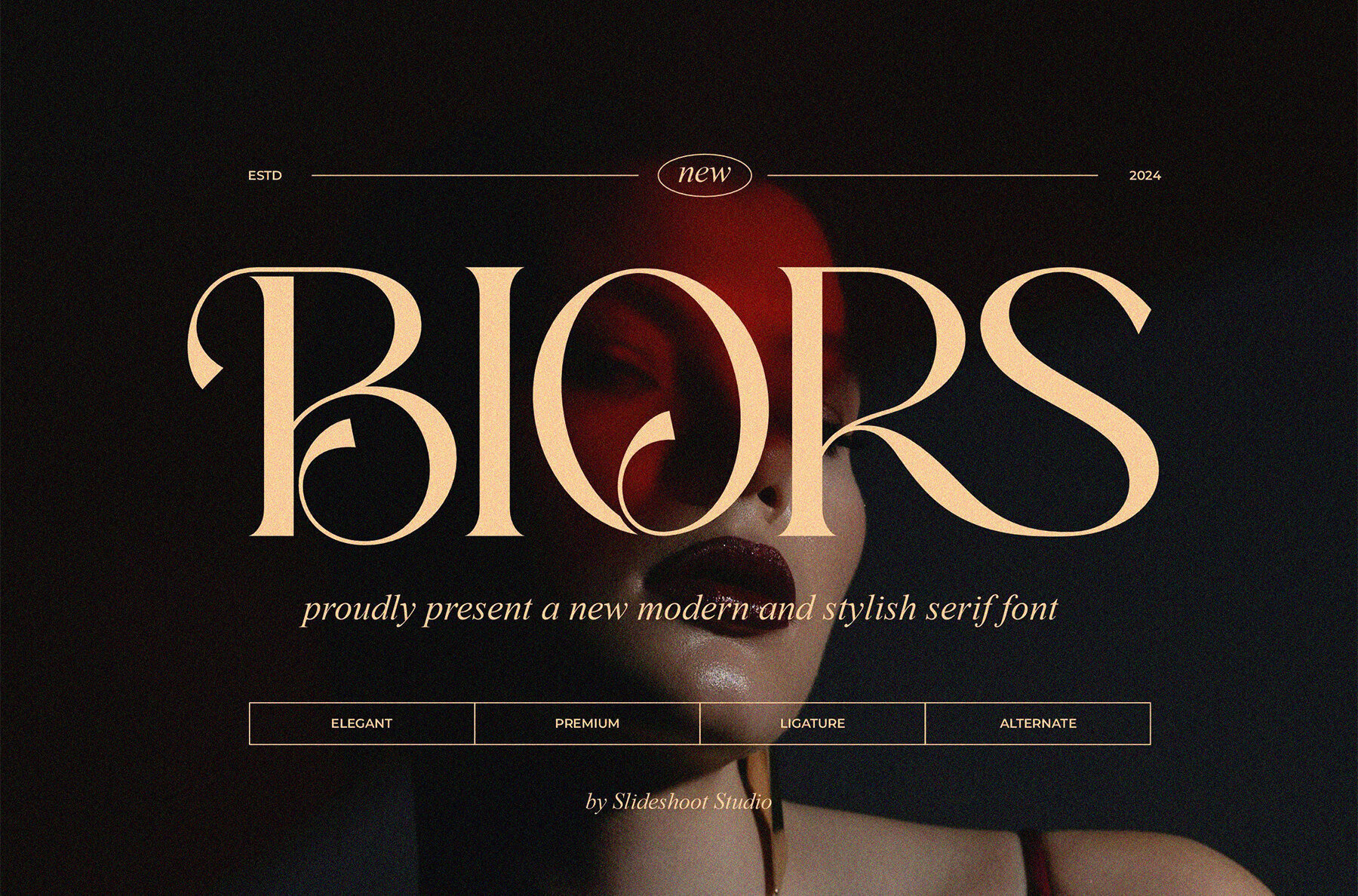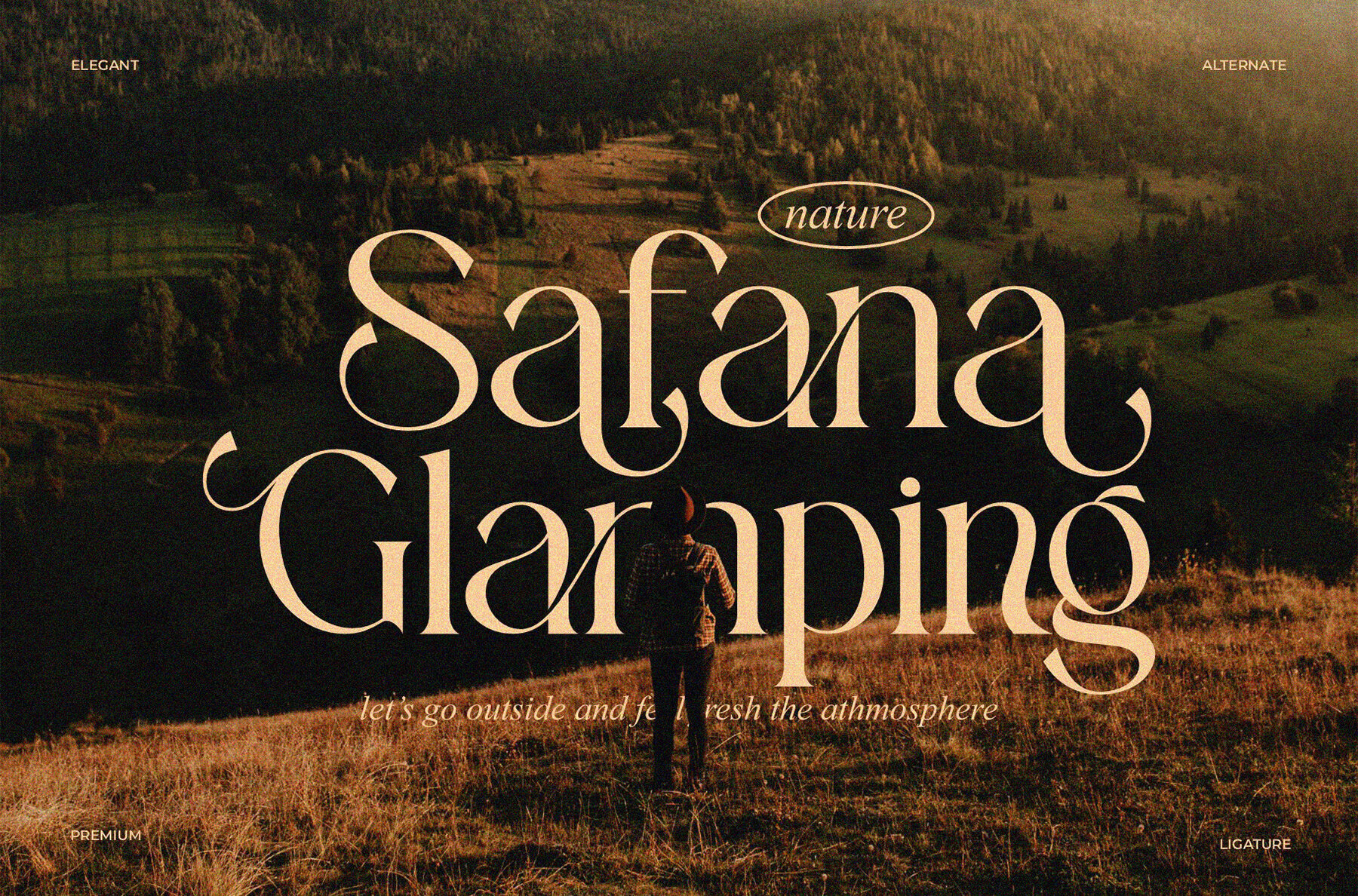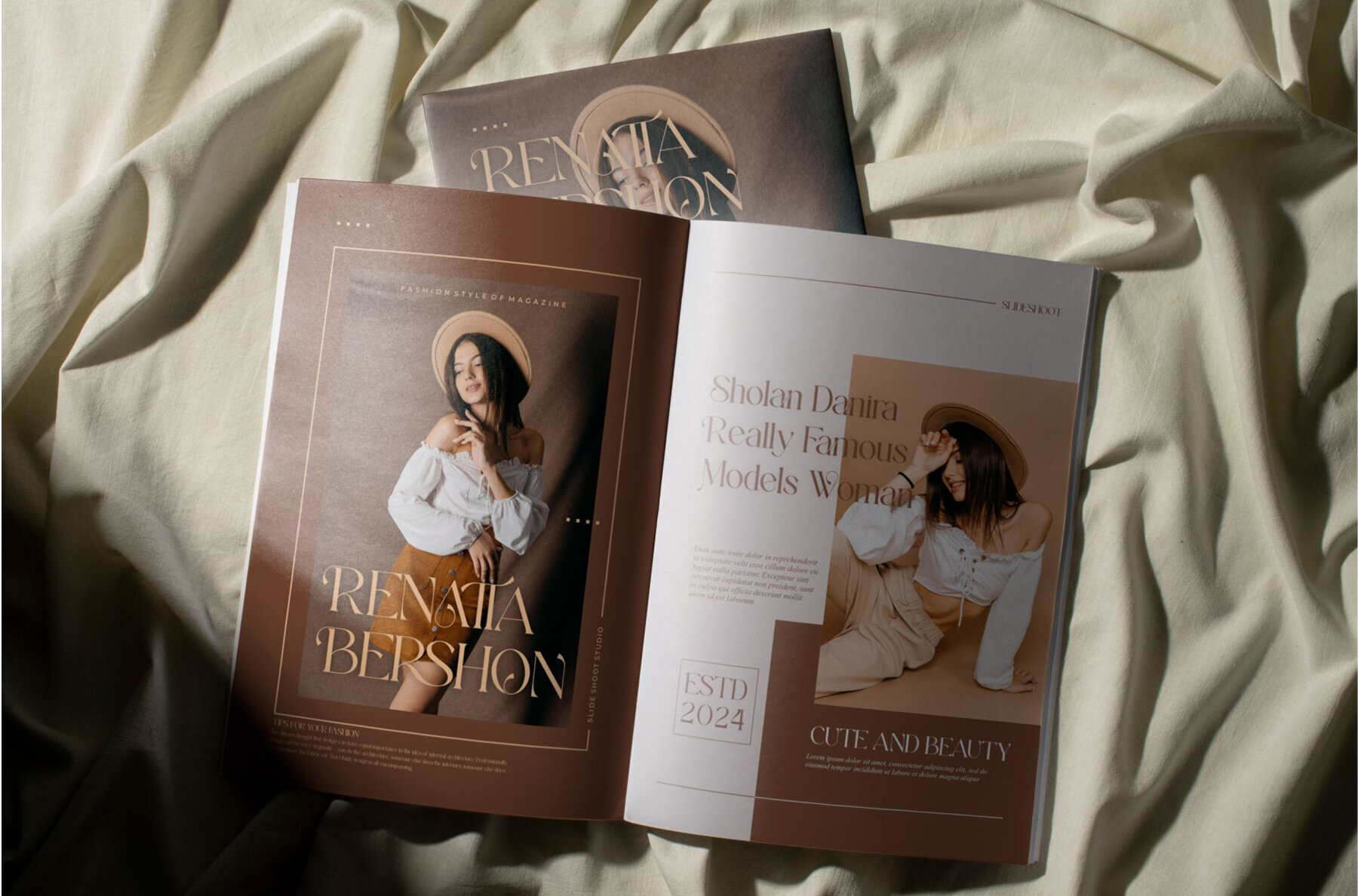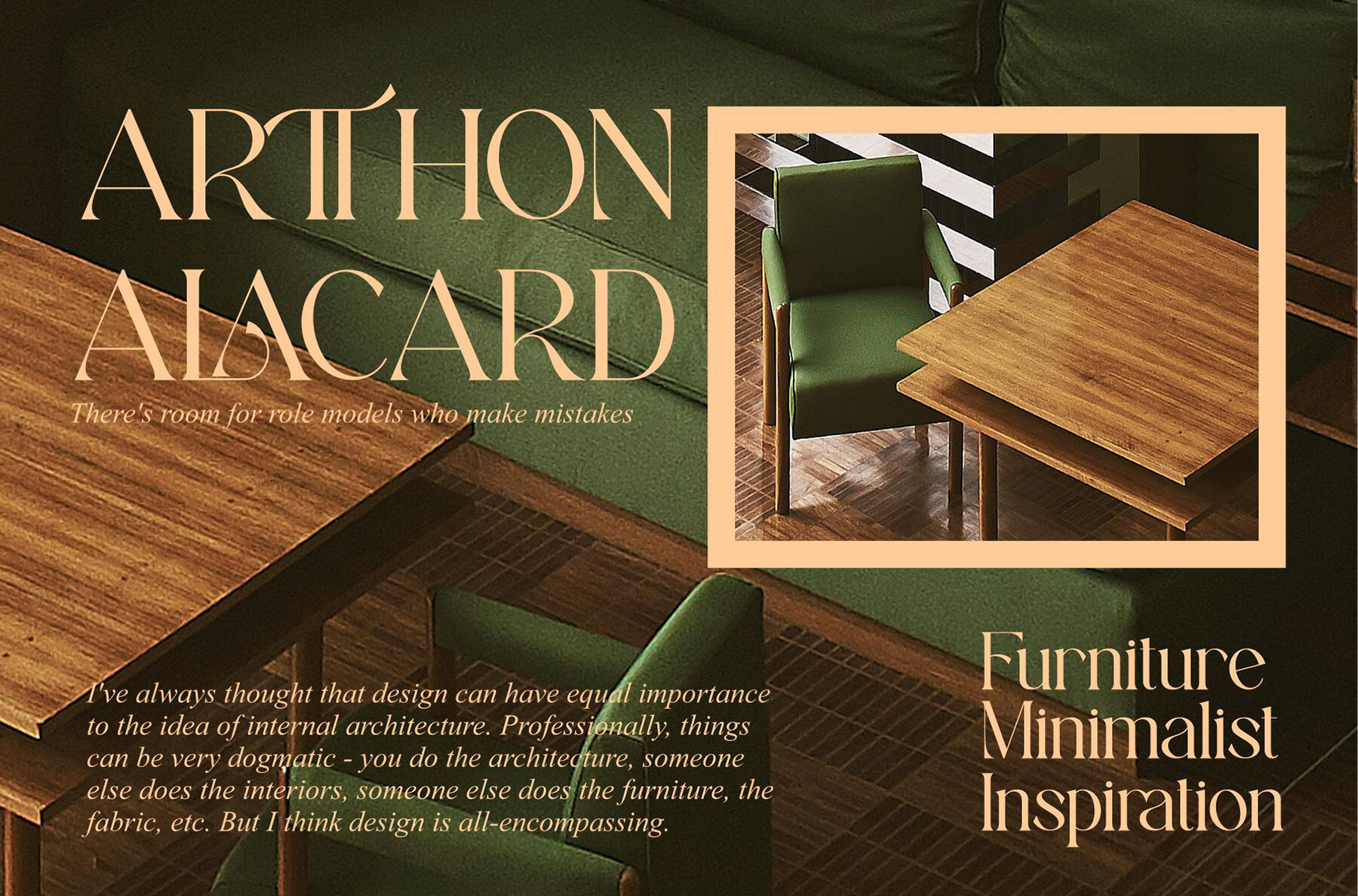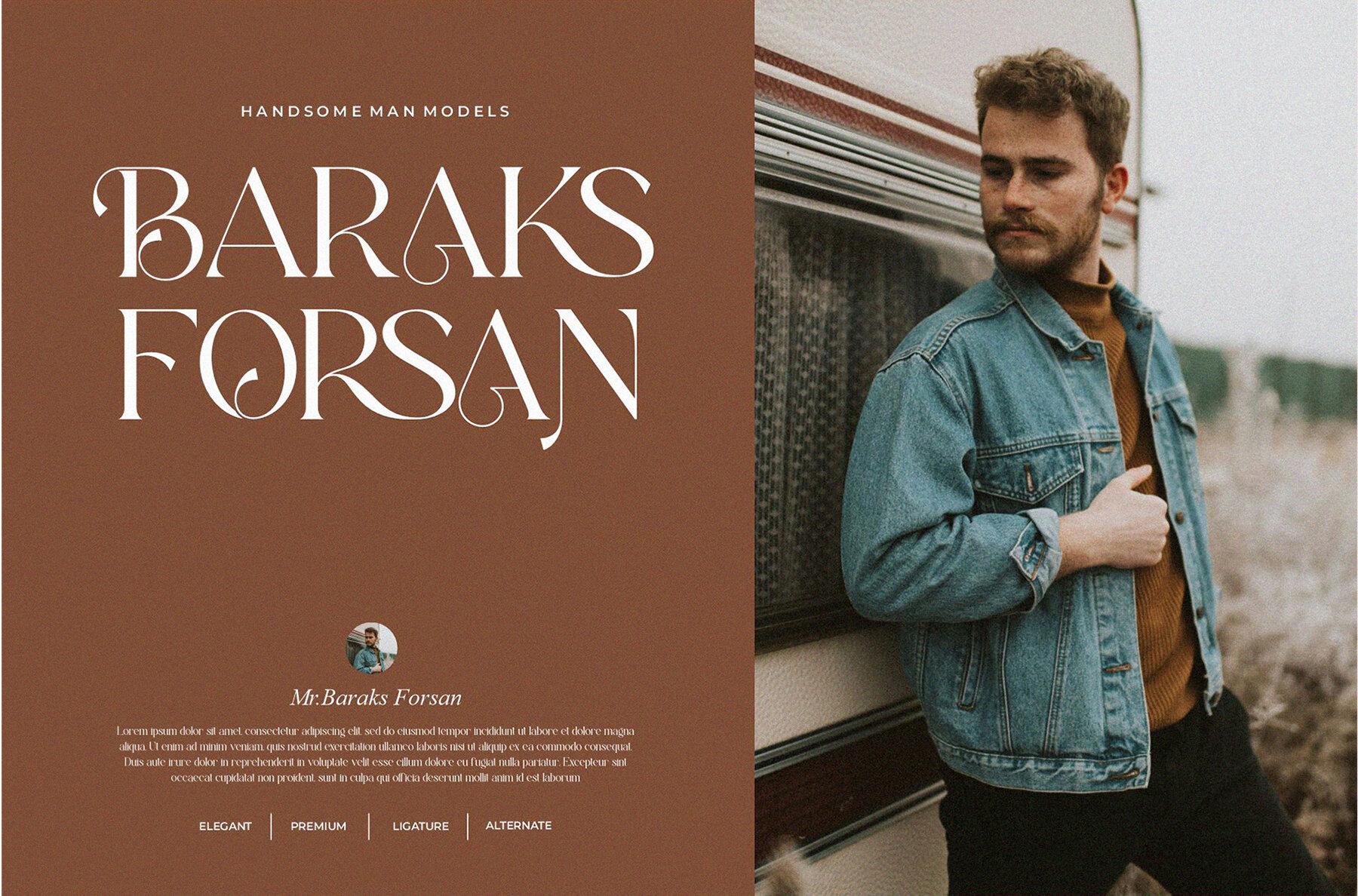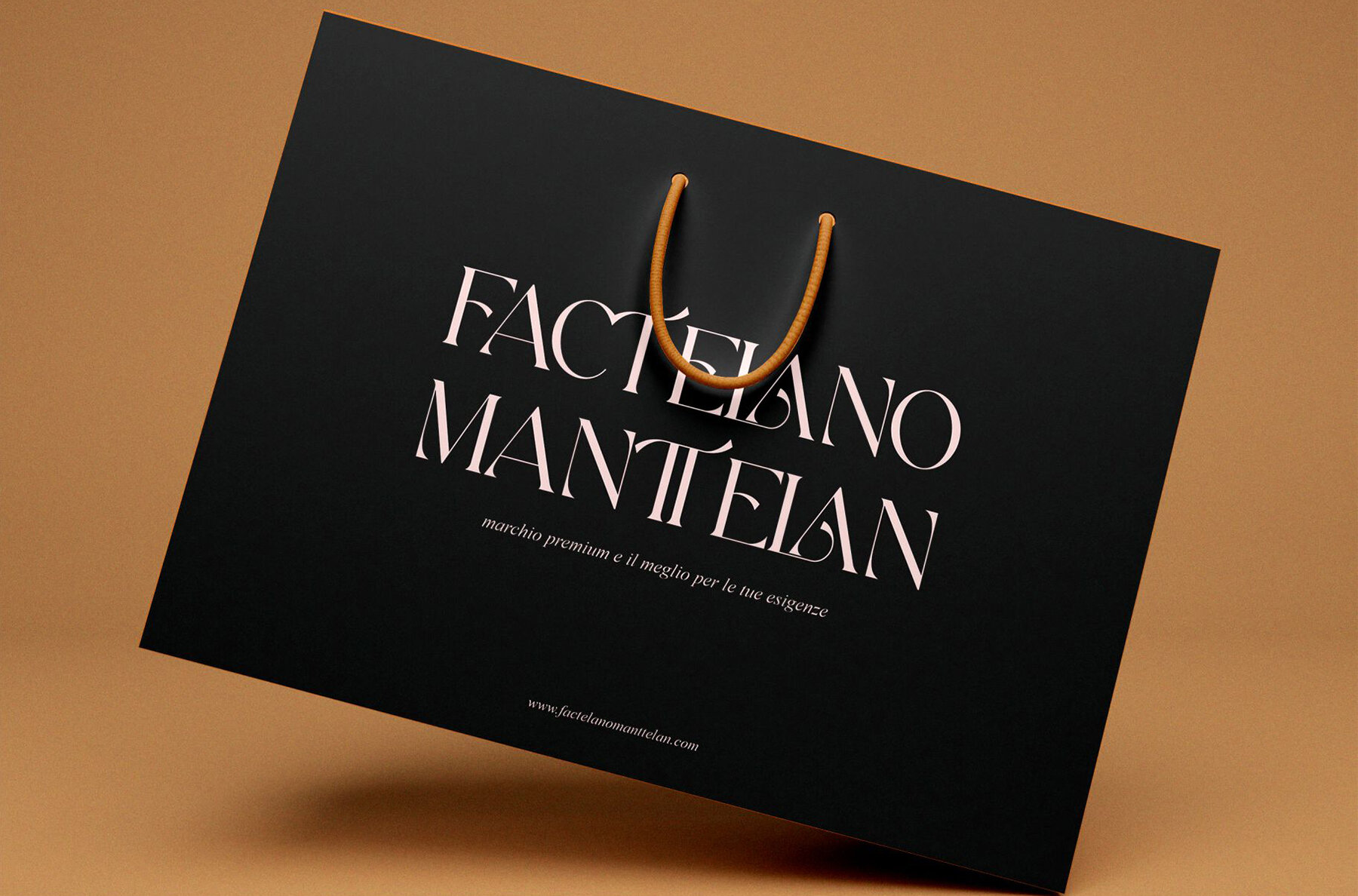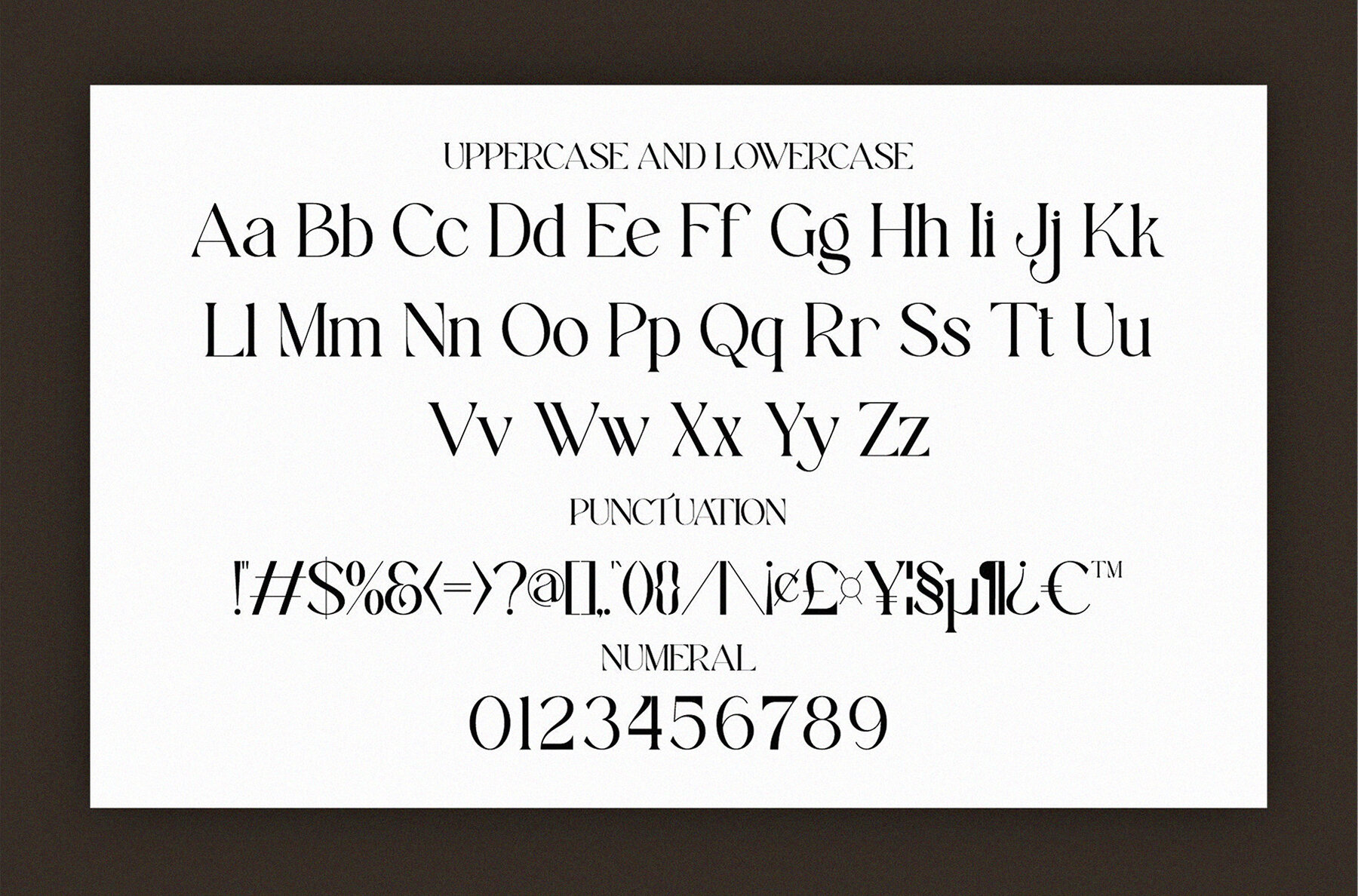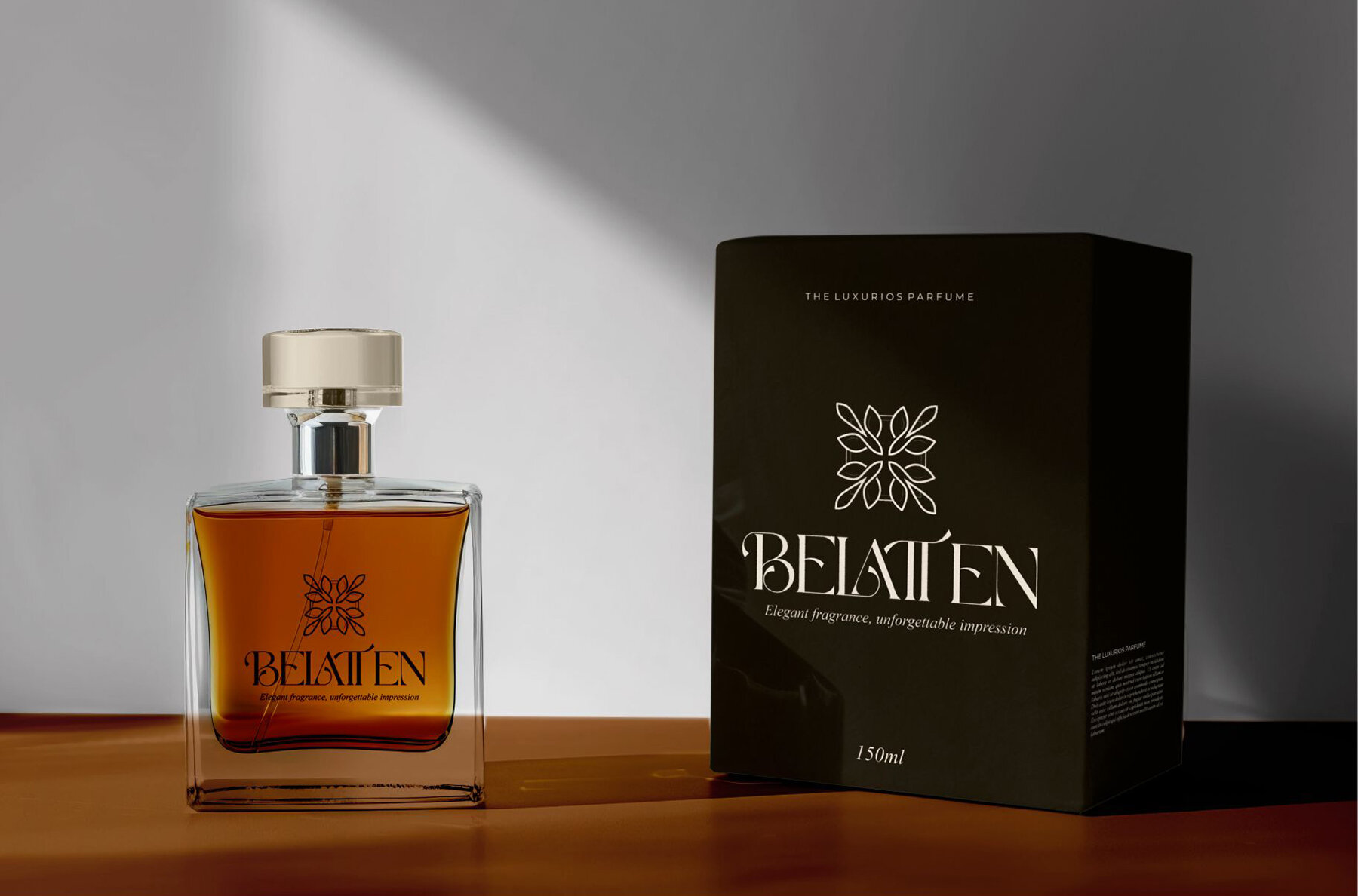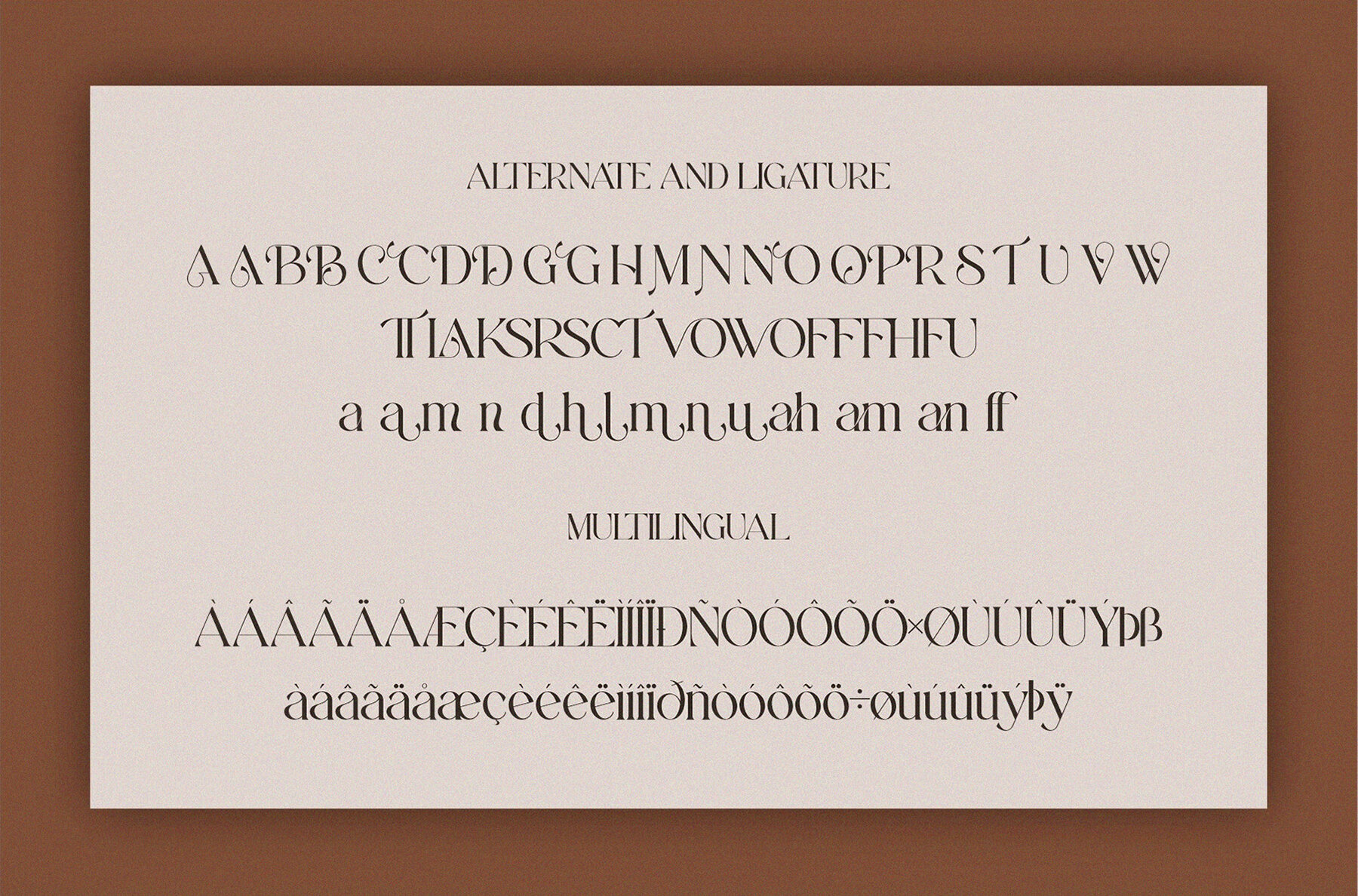
Biors Font
Biors Regular
Biors Serif is a modern serif font designed for a range of creative applications including branding, logo design, and more. Its elegant characters and smooth design make it ideal for projects that require a touch of sophistication, such as invitation cards, movie titles, and business cards.
This font stands out with its stylish alternations and ligatures, adding a unique flair to any design project. Whether you're working on book titles, brand names, or other creative endeavors, Biors Serif offers a classy, refined aesthetic suitable for various uses.